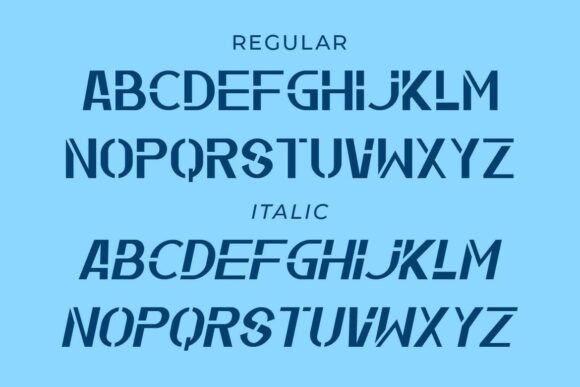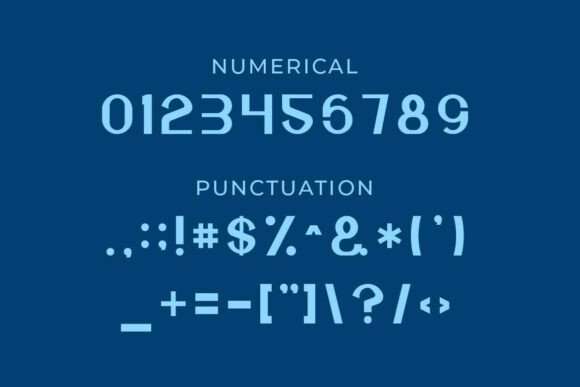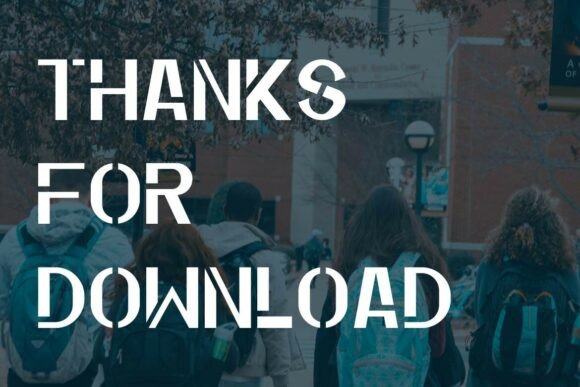
Introduction to Mollubala Font Font
Fonts play a crucial role in design, and the Mollubala Font font is a typeface that brings both character and versatility to any project. Whether you’re working on a branding project, a website, or a print design, the Mollubala Font font offers a unique style that can elevate your work.
Mollubala is a sleek and versatile sans serif font that blends geometric structure with gentle curves, creating a harmonious balance between modernity and warmth.
Its clean lines and open forms make it highly readable and ideal for branding, editorial layouts, web design, packaging, and professional presentations .
Key Features of Mollubala Font Font
Why Choose Mollubala Font Font?
The Mollubala Font font is more than just a typeface – it’s a design tool that helps you communicate your message with style and clarity. Its unique character set and versatile design make it suitable for a wide range of applications, from elegant invitations to bold headlines.
With its carefully crafted letterforms and balanced proportions, the Mollubala Font font ensures readability and visual appeal across all mediums.
What makes Mollubala Font font special?
The Mollubala Font font stands out with its unique design, exceptional readability, and versatility across various design applications.